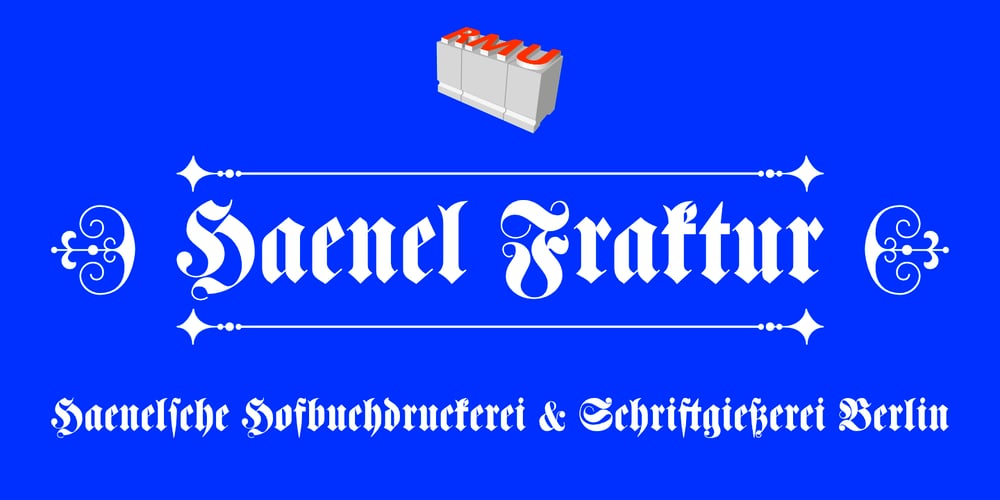
Haenel Fraktur Font Family was designed by Ralph M. Unger and published by RMU. Haenel Fraktur contains 1 styles and family package options. A bold but nevertheless pleasant black-letter font which was released for the first time about 1840 by the Haenel’sche Printshop and Letterfoundery in Berlin. Haenel Fraktur contains a bunch of useful ligatures, and by typing ‘N’, ‘o’ and period you get an old style number sign by activating the Ordinals feature.